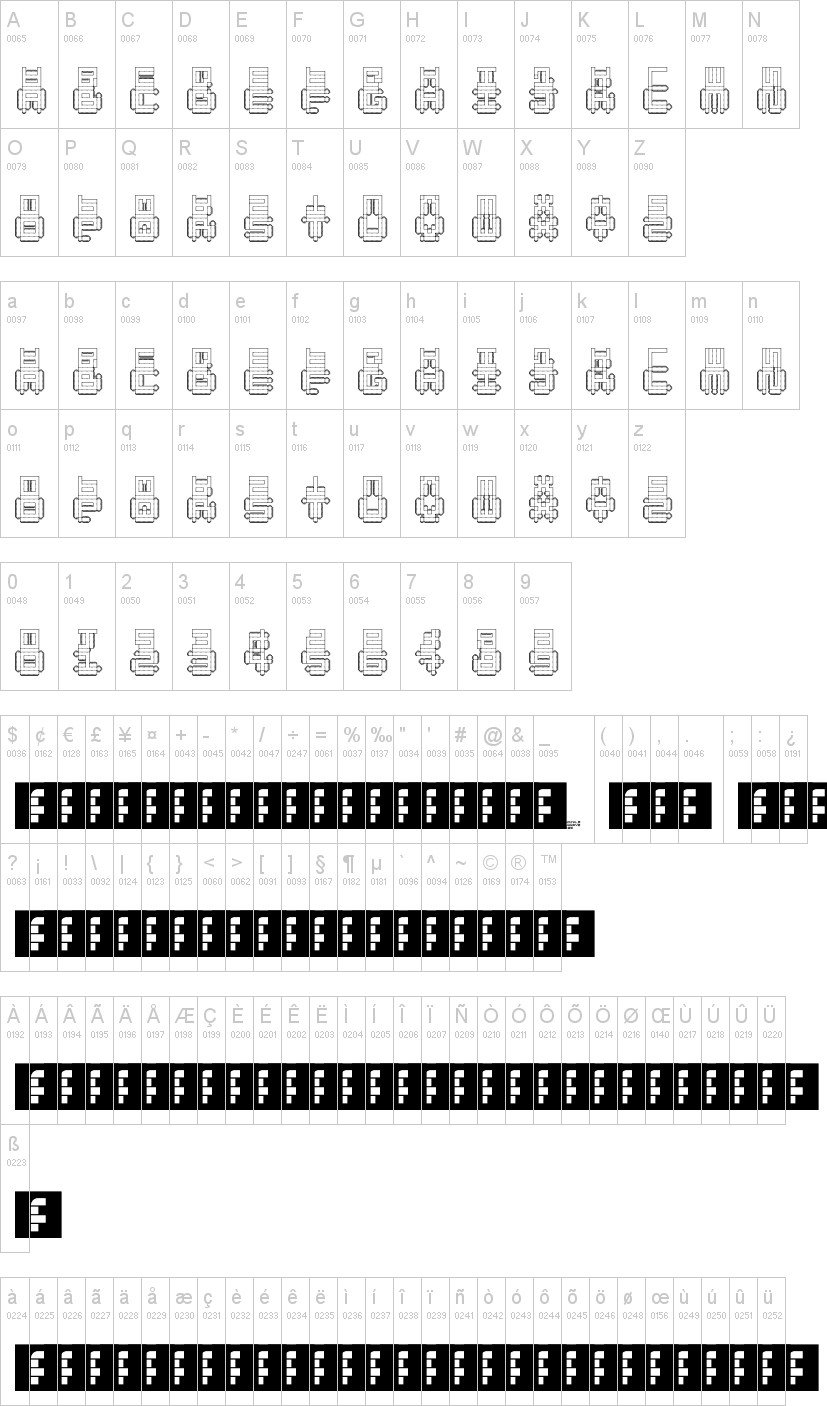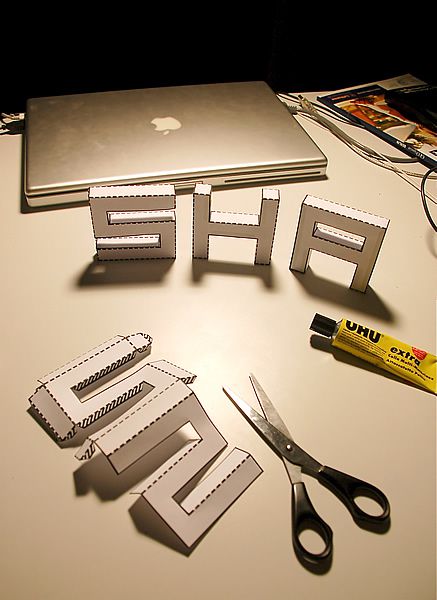
Шрифт Punched Out
This font is a set of cut-out layouts with which you can build 3D pixel style letters. They should all work. Just cut along the solid lines, fold along the dotted lines, put some glue on the shaded flaps, stick them together and there you go...
(Update 29-04-2012: Redesigned X. Looks much better now.)